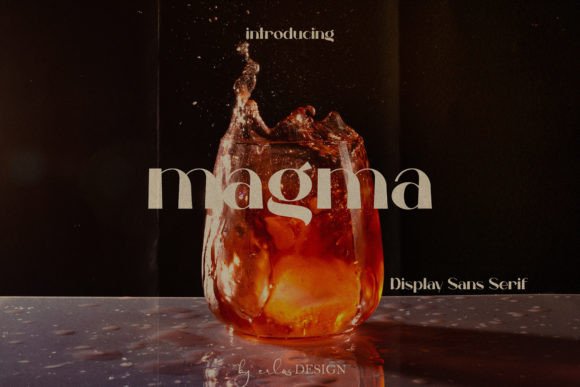
Immerse yourself in the world of typography with Magma Font, a captivating sans serif font that exudes modernity and sophistication. This font is not just a collection of letters; it's an artistic expression that will ignite your creativity and transform your designs into masterpieces.
With Magma Font, you unlock a world of boundless possibilities. Its clean and legible lines make it perfect for small displays, ensuring your messages are delivered with impact and clarity. Whether you're crafting logos, headlines, or user interfaces, Magma Font will elevate your work with its striking presence.
Magma Font is the brainchild of erlosDESIGN, a visionary font creator known for pushing the boundaries of typographic art. This font is a testament to their passion for creating fonts that resonate with designers and leave a lasting impression on audiences.
The versatility of Magma Font knows no bounds. It's equally at home in digital and print media, making it an indispensable tool for designers, marketers, and creatives alike. Unleash your imagination and let Magma Font guide you to typographic excellence.